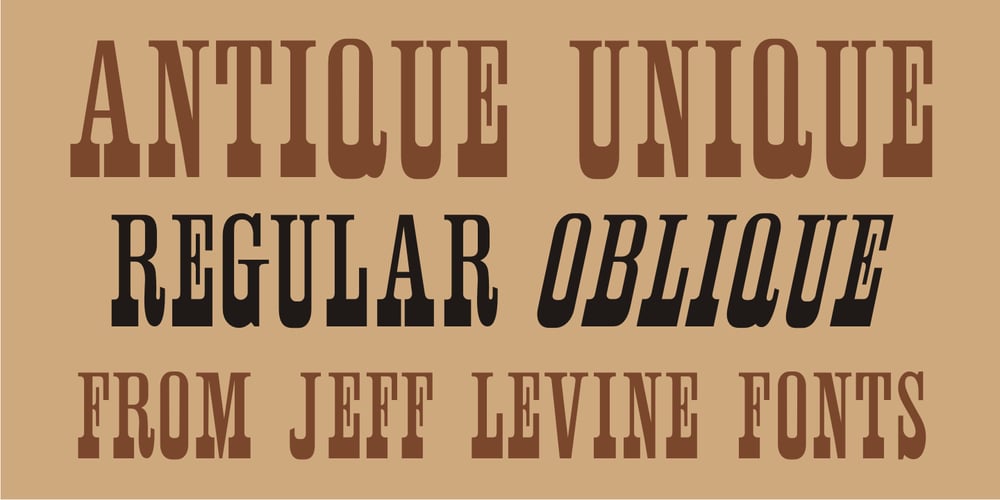
Antique Unique JNL Font Family was designed by Jeff Levine and published by Jeff Levine. Antique Unique JNL contains 2 styles and family package options. A page from an 1880s type specimen book presented a unique “Barnum”-like design with top horizontal lines much thinner than the bottom ones. Titled “Ten Line Antique Compressed No. 7”, the design transcends the years; for it’s not only an antique wood type font, but is also reminiscent of the 1960s hippie counterculture movement. Antique Unique JNL is available in both regular and oblique versions.